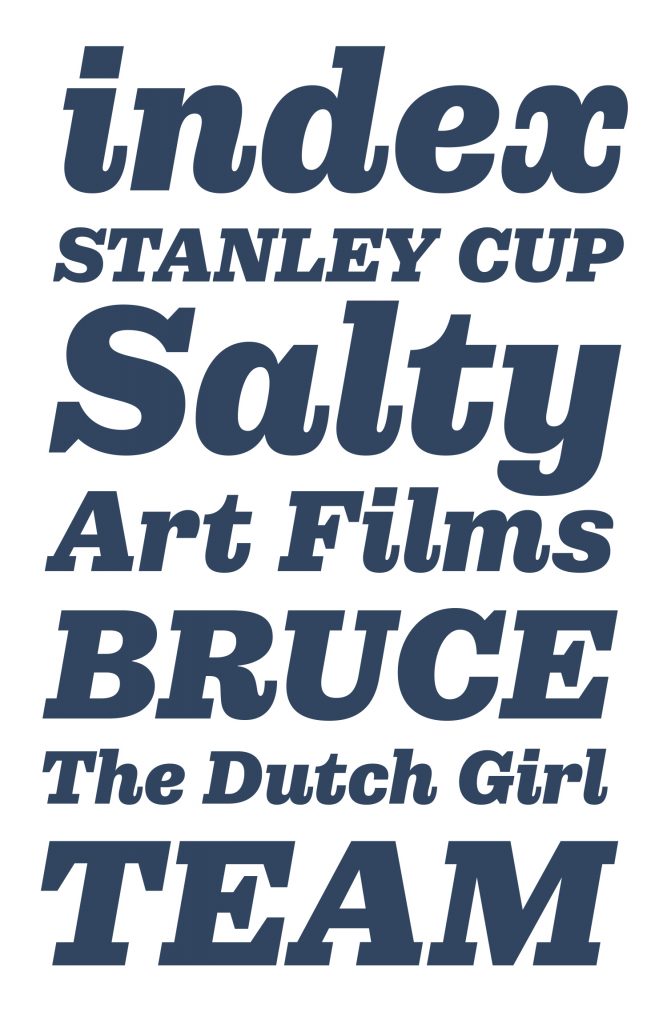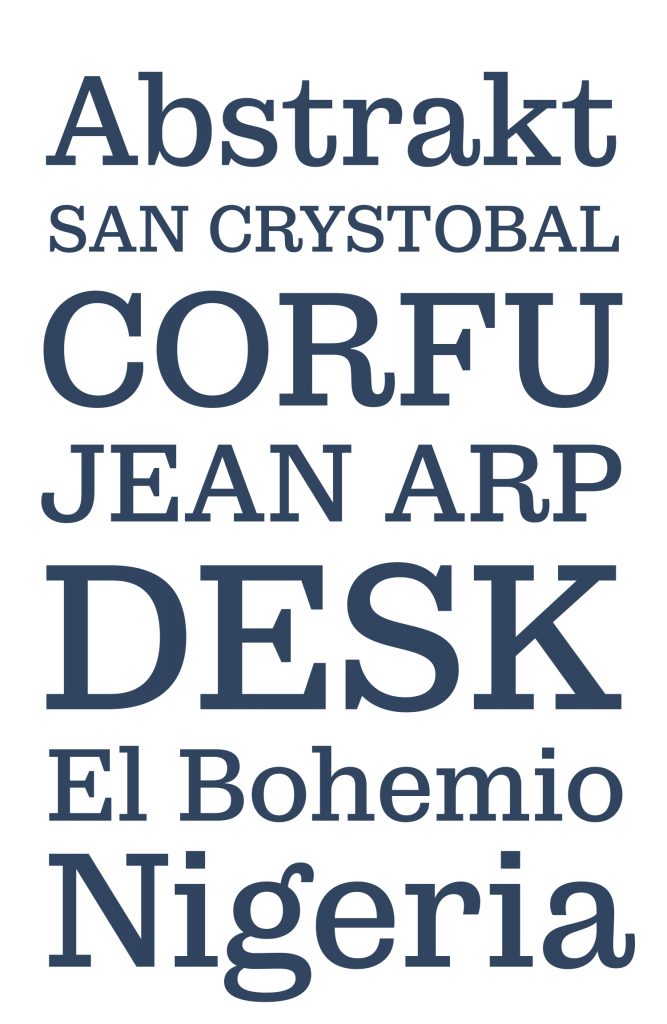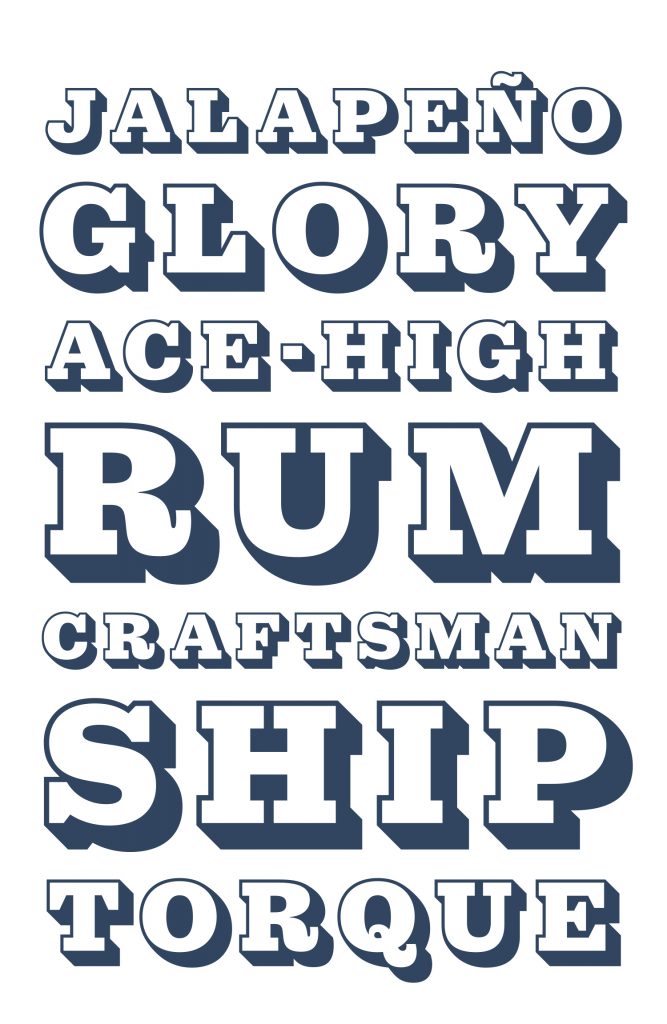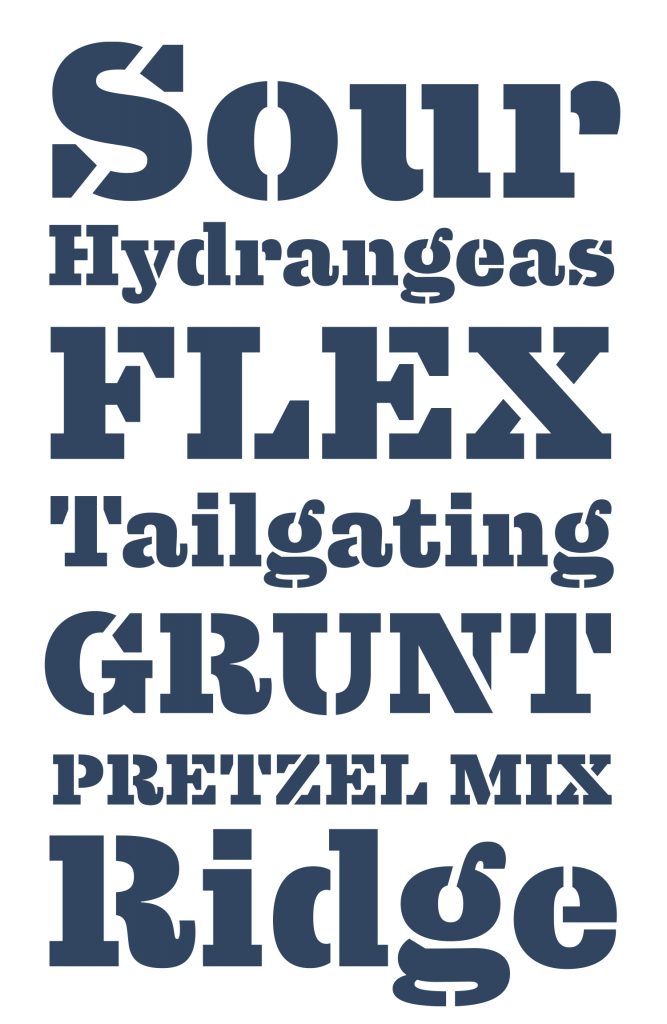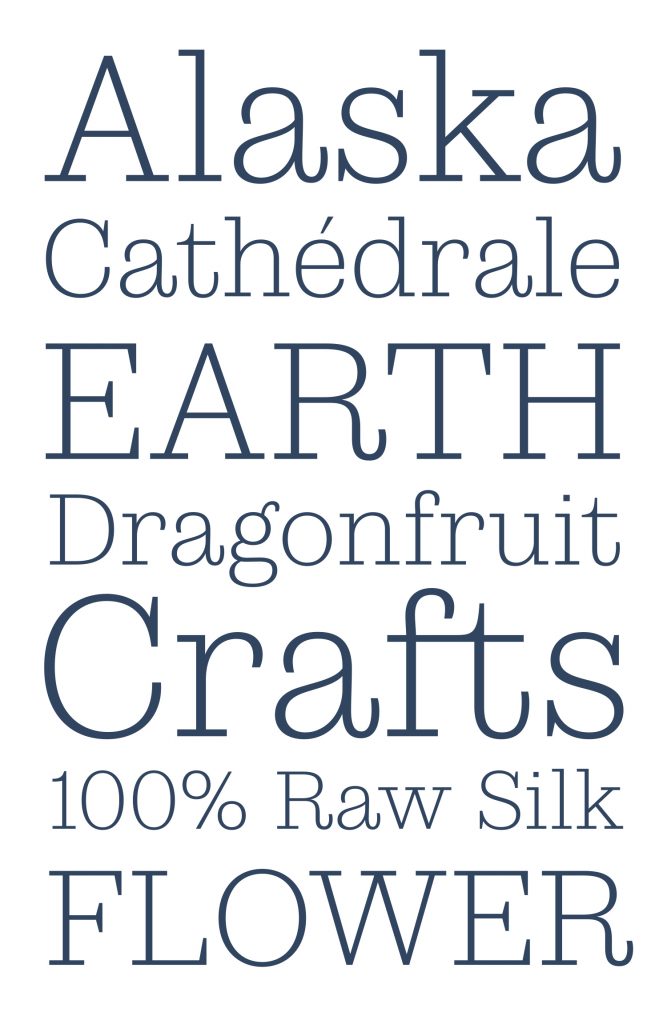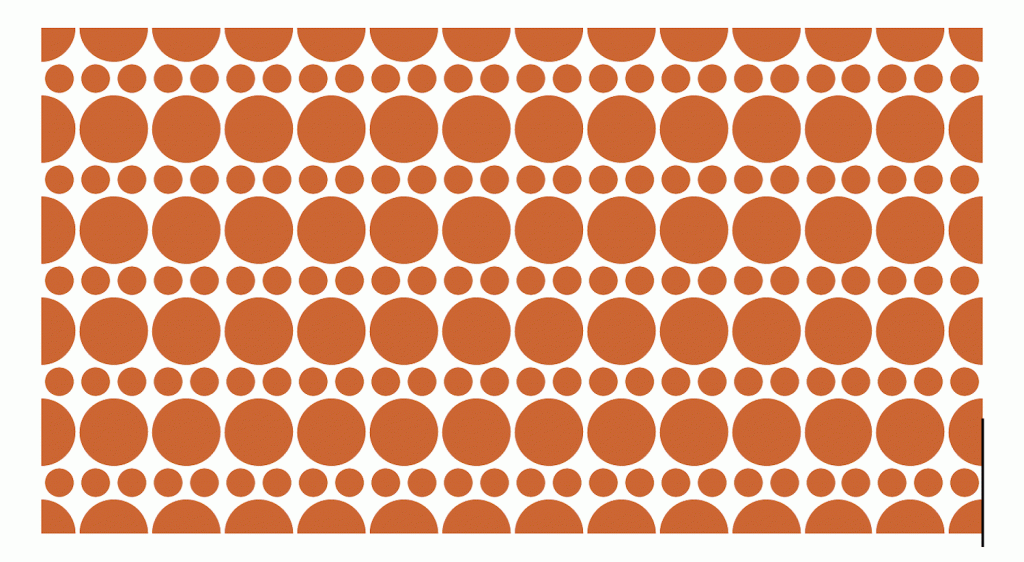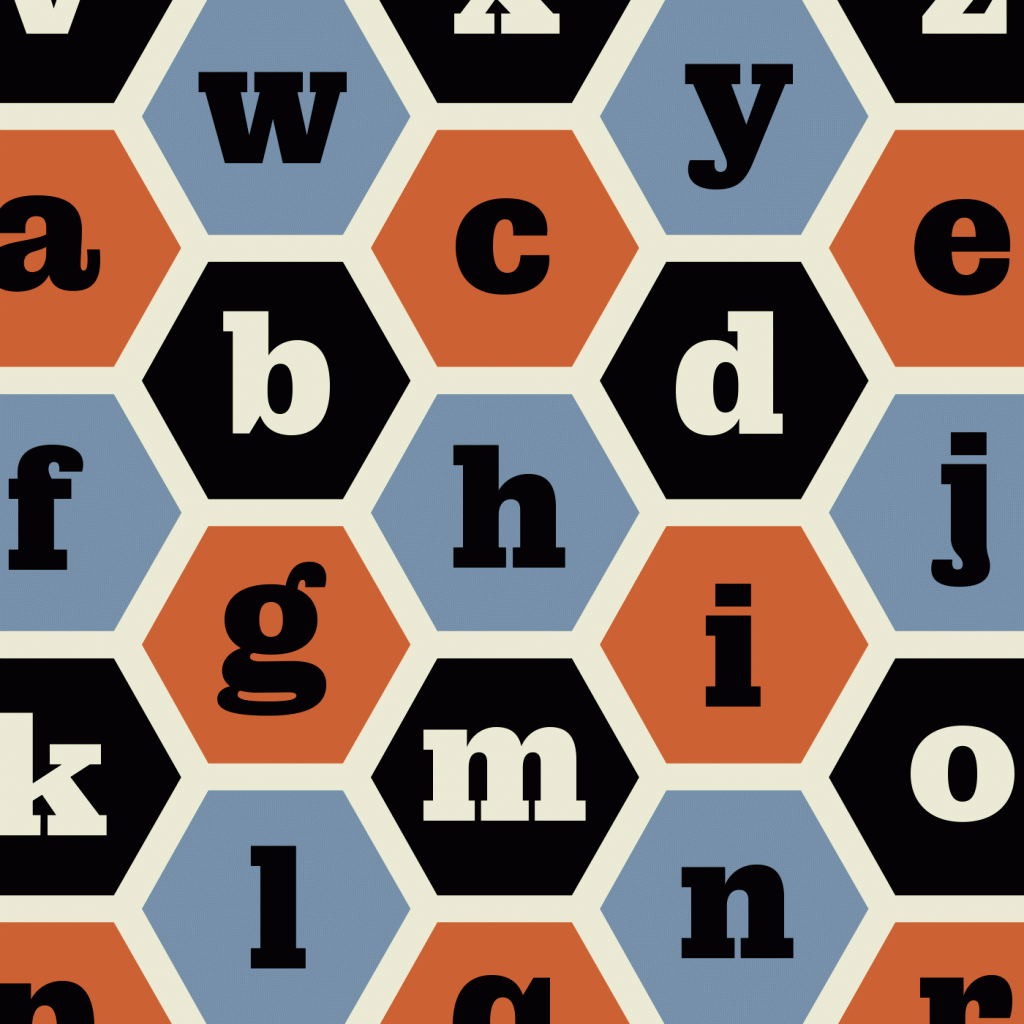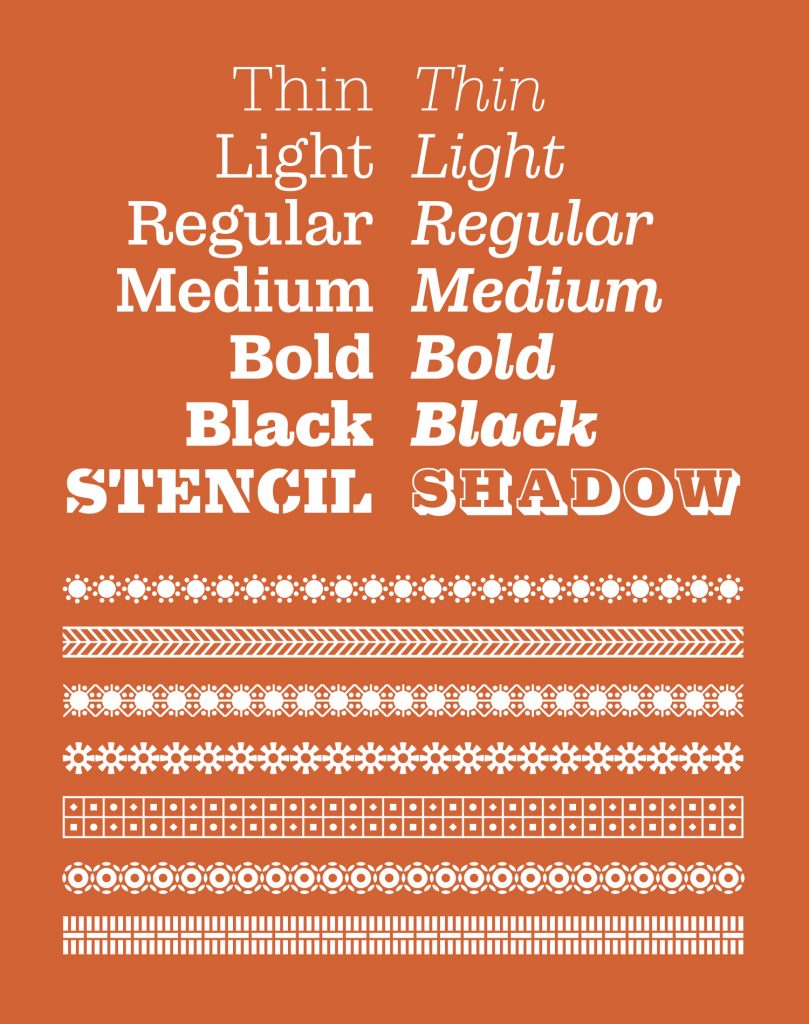
Name: Municipal
Foundry: House Industries
Designer: Typeface design by Ken Barber, Quentin Schmerber of Production Type, Teja Smrekar, and Ben Kiel; typeface production by Ben Kiel and Jason Campbell; art direction and design by Andy Cruz and Bondé Angeline
Release Date: August 2020
Back Story: Municipal could be said to have been conceived on the sidewalk. Its designer Ken Barber admits to a habit of almost compulsively photographing interesting letterforms he encounters—“posters, packaging, signs, you name it”—and he hit type-inspo gold in New Bedford, MA, in 2010. Said gold was in the form of a utility cover: “What caught my eye were the iron lid’s beefy letterforms, an offbeat mixture of slab serif styles punctuated by sizable triangular serifs,” says Barber. “The ampersand added even more twists, with an unusual circular serif at one end of the mark, and a backward-curling foot finishing off the other. The result was a charming collection of forms that filtered conventional type through a vernacular lens.”
Inspired by those letterforms, Barber created Municipal Cast which he describes as a “one-off tribute to the humble manhole cover” and released it in 2015. But Municipal was far from complete: Barber assembled a team of other type designers and producers to set about evolving this initial idea into a fully-fledged family of 15 fonts across multiple weights and styles.
Barber says he wanted Municipal’s fonts to be “functional, while retaining a unique personality beyond simply being readable.” They draw influence from both traditional typographic contexts (namely the work of English foundries Stevens, Shanks & Sons and Figgins). “It was common for the letterforms to appear different from size to size during this period,” says Barber, who adds that he’s a sucker for such fonts’ “sturdy proportions and simple lowercase terminals.”
In addition to referencing 19th-century type specimens and vintage hand-lettering, the designers also investigated iron foundries to see how manufacturing methods influenced their final products—works of art that double as pieces of everyday industrial design.
Why’s it called Municipal? Quite simply, says Barber, the name Municipal “spoke perfectly to the industrial origins of my beefy slab-serif inspired by American utility cover lettering.”
What are its distinguishing characters? As with many American commercial iron castings of the past 150 years, Municipal boasts prominent wedge-shaped vertical serifs. These are contrasted by softer elements like generous round strokes and recurring nods to 19th-century font specimens, such as the plain endings for lowercase letters (‘a’ and ‘c,’ among others) rather than the ball terminals found on other similar fonts, as well as the italic lowercase forms that begin with horizontal entry strokes and finish with contrasting curved exit strokes.
Municipal’s “clear, crisp” lighter weights “appear to be almost mono-weight, reminiscent of typewritten forms,” says Barber. The low contrast of Municipal’s fonts ensures the middle weights are comfortably legible for running text, small sizes, and in “elaborate multi-font settings.” Its heavier weights look to be “eye-catching without being clumsy or overpowering.” Meanwhile, Municipal Patterns, the iteration most flagrantly adapted from everyday utility cover designs, allows designers to use the font itself for repeating decorative elements.
What might it be used it for? As its name suggests, Municipal was created to be utilitarian, yet full of character. The designs—even in the more “brawny,” bolder weights—avoid being clumsy, meaning that each of the 15 fonts is pretty versatile. At the heavier end of the weights, Municipal really comes to life on applications where type can be brought to the fore such as posters, book jackets, packaging, and signage—“anything that requires a strong and direct tone,” says Barber.
“Municipal’s lighter offerings have a remarkably lithe frame that makes them equally striking in large-scale applications. Put these fonts to work in advertising, editorials, or package design.” He adds that a dream application would be Municipal returning to its origins by being cast in metal.
What other typefaces do you like to pair it with? Barber says he likes to pair it with another of his designs, Chalet Comprimé, a flat-sided sans which also harkens back to 19th-century type design. Municipal also contrasts pretty nicely with Neutraface No.2, as despite the fonts hailing from different eras, they share a low contrast, simple construction, and clean silhouette. “To create a 19th-century poster vibe, try Municipal with a fat face such as Montage, or pile on novelty fonts like Carnival and Benguiat Buffalo,” says Barber. “If a more sophisticated look is in order, contrast Municipal with an elegant roundhand script like Davison Spencerian.”